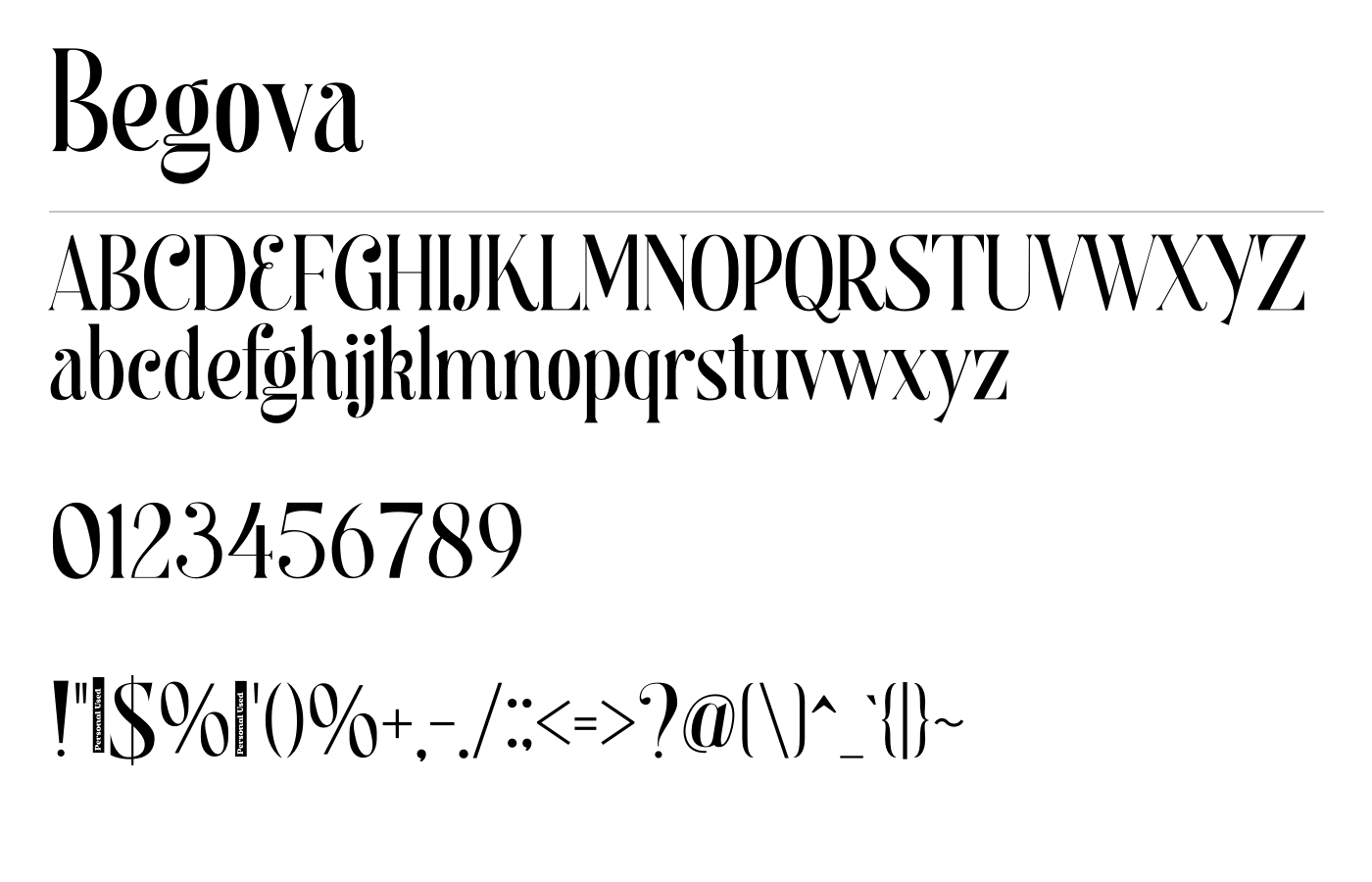
Begova is a stylish serif font characterized by its elegant high contrast between thick and thin strokes, with narrow proportions and distinctive bracketed serifs that give it a refined, timeless feel. The font’s unique details, like its single-story lowercase letters and the playful curves on capitals, lend it a sophisticated yet modern personality, making it ideal for luxury branding, editorial headlines, and fashion packaging where a touch of elegance and individuality is desired. Its striking presence and graceful forms make Begova perfect for designs that want to communicate class and style with a contemporary edge.
Begova Font
About Begova Font